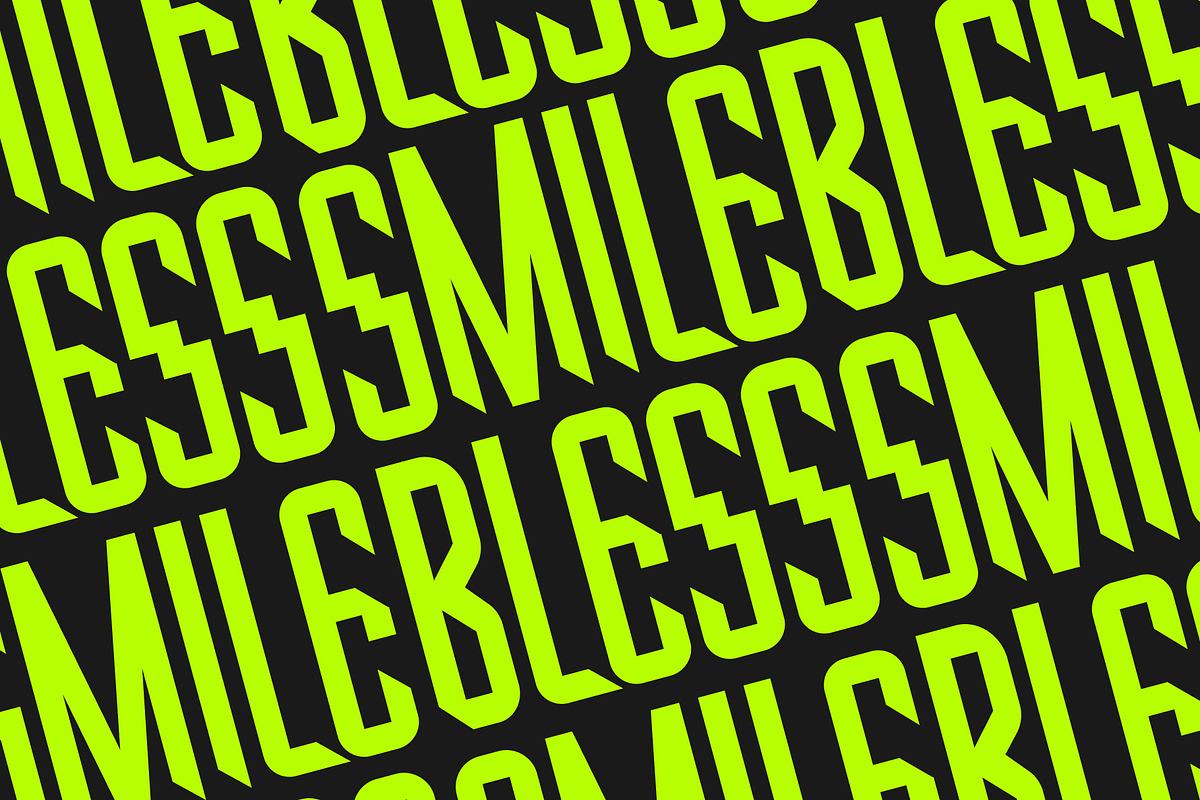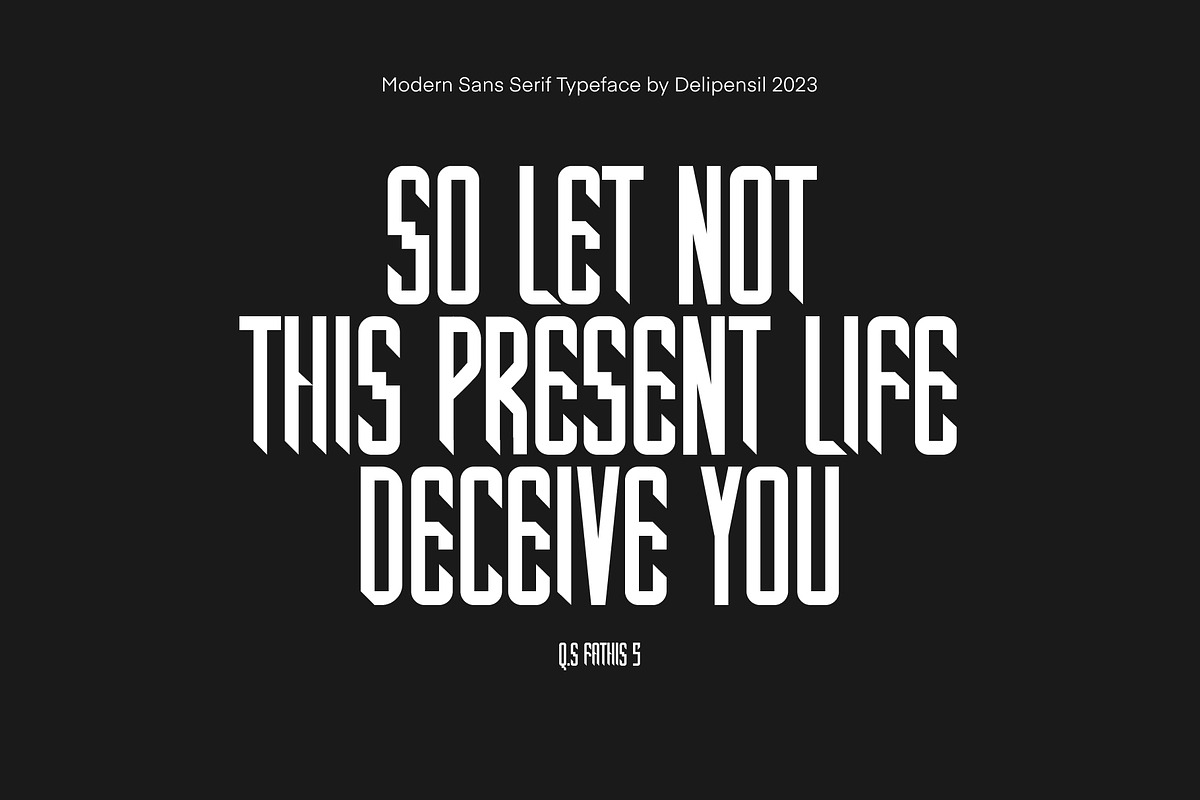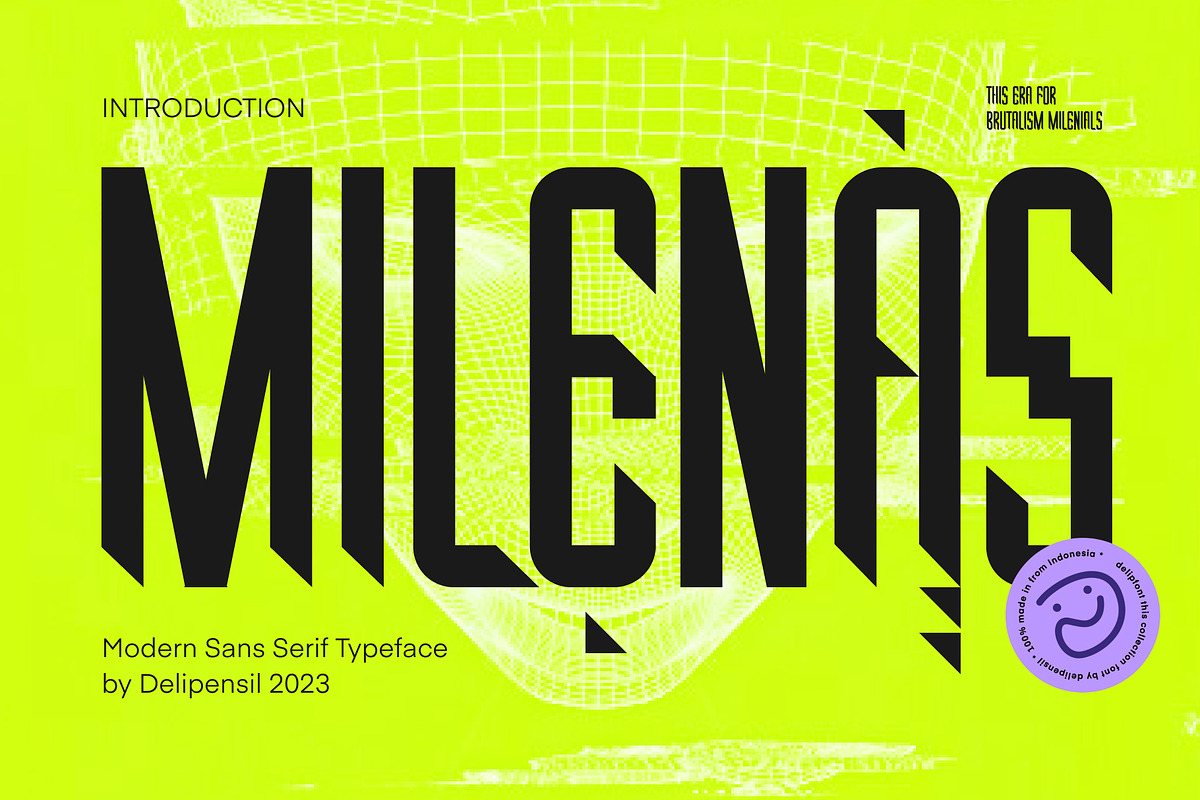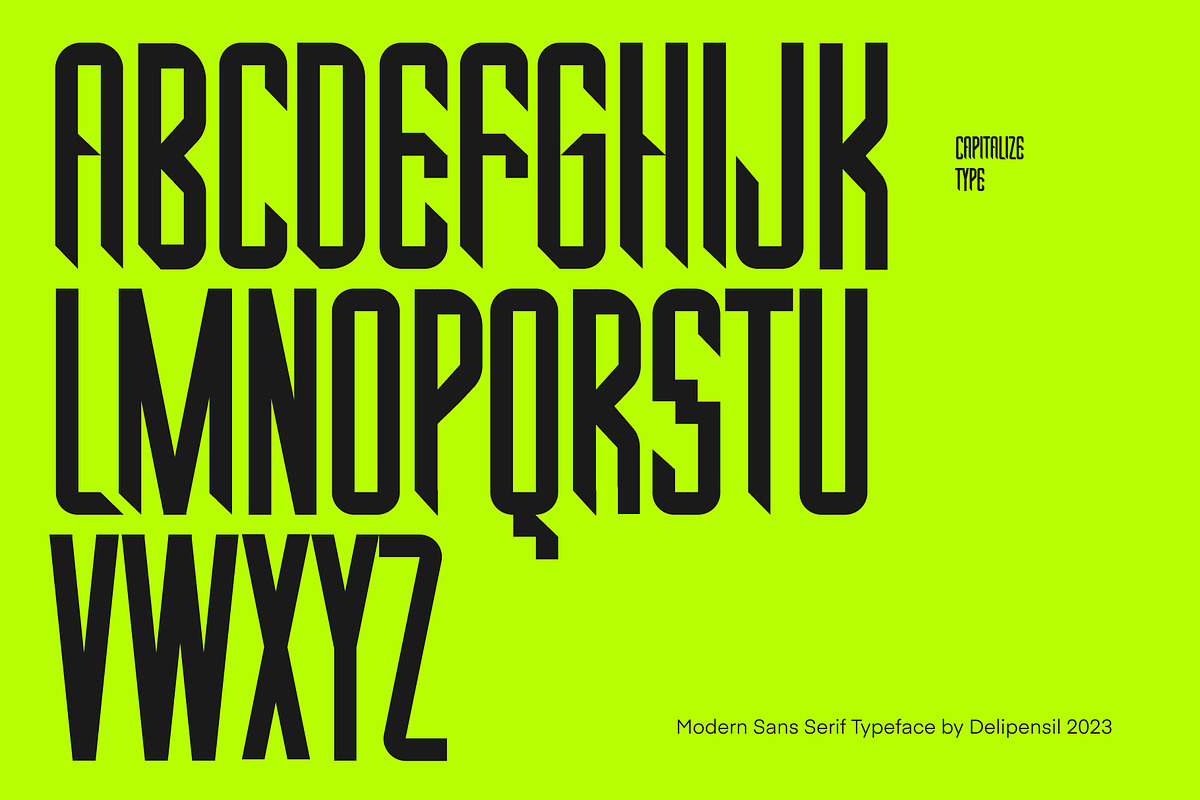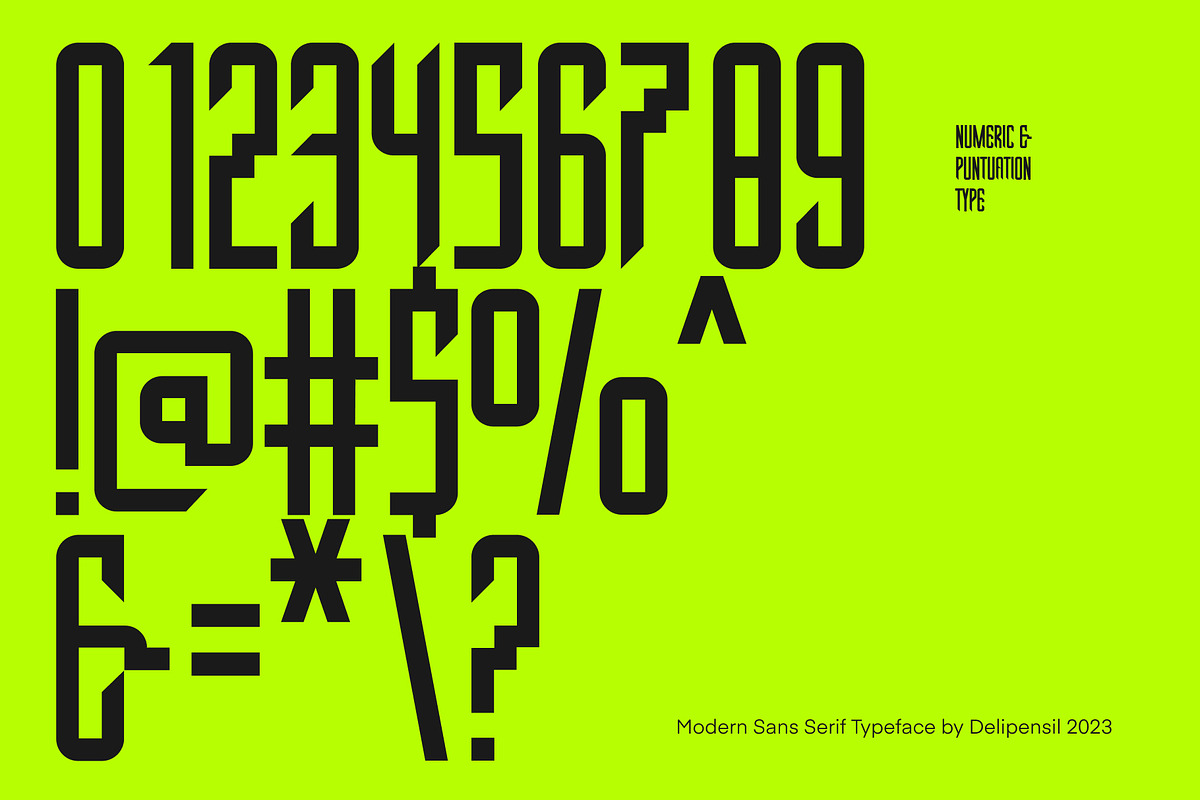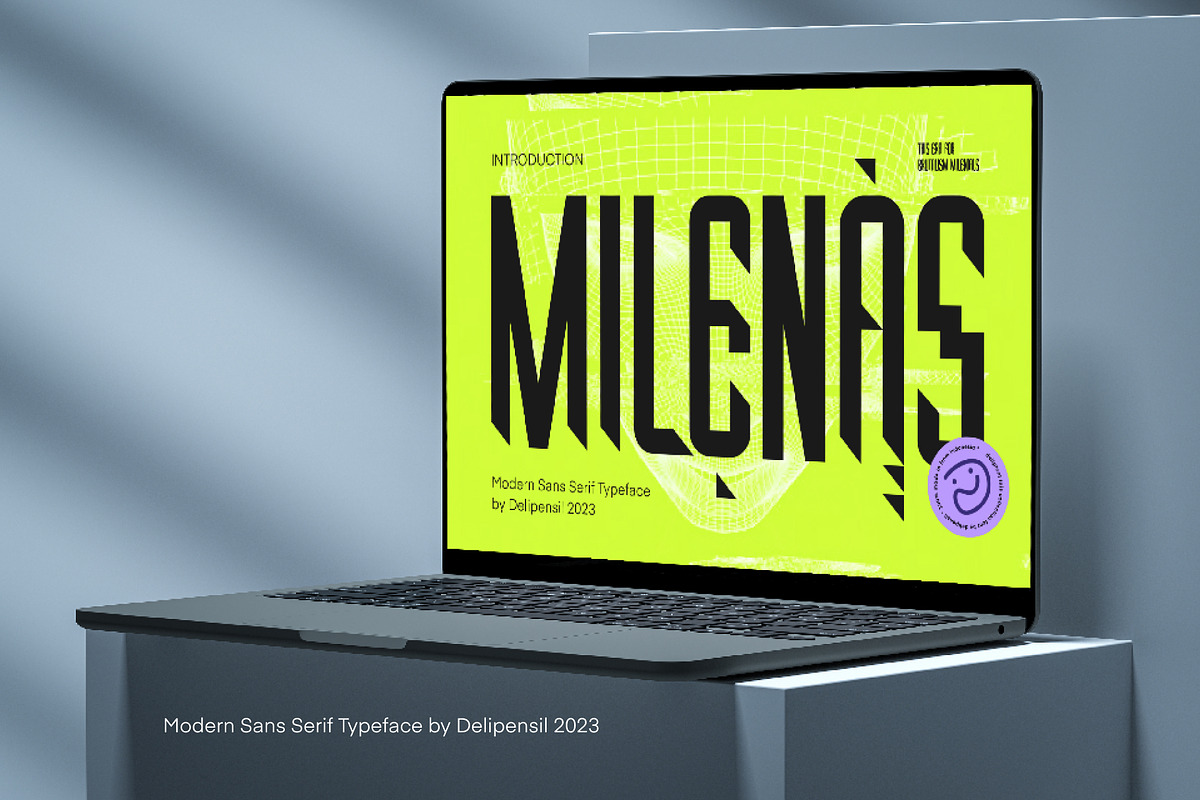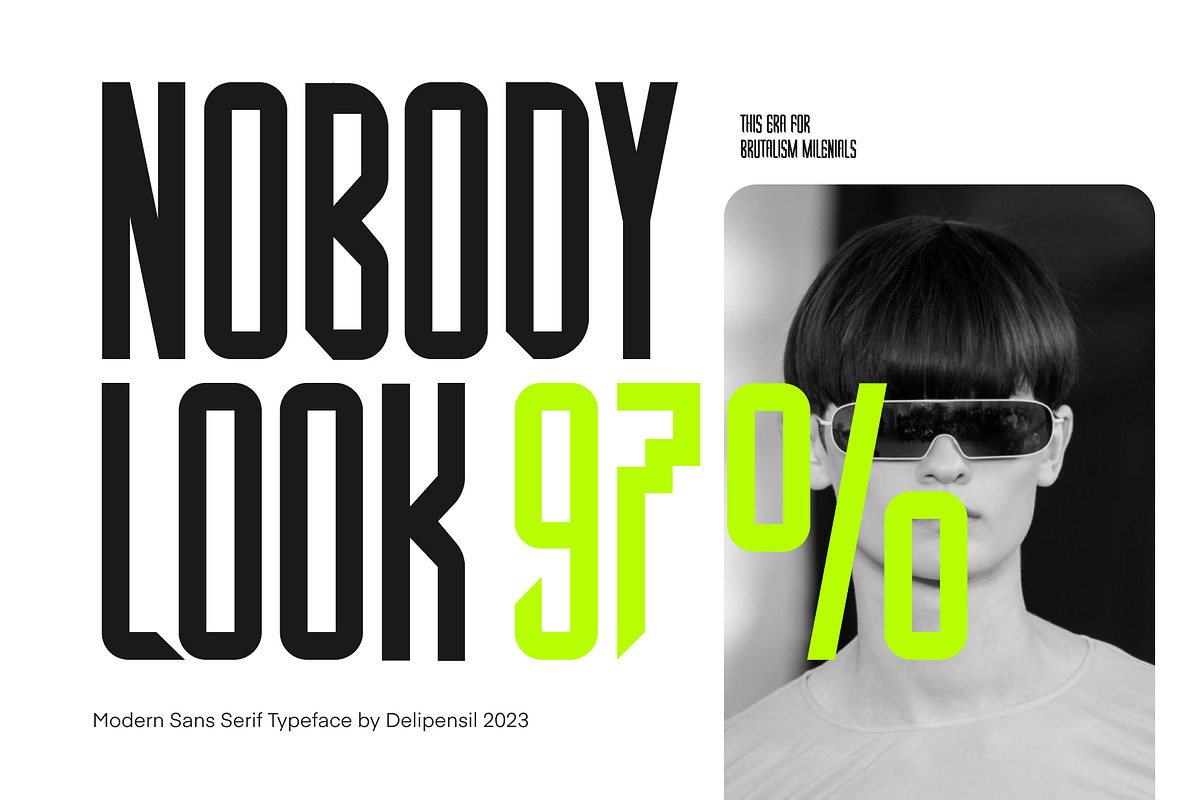
MILENAS - Modern Sans Serif
Bismillah, Introduction NEW FONT : MILENAS - SANS SERIF TYPEFACE
This font suitable for style Brutalism this era, to make you headline stunning, title more bold, and make your design more Futuristic, everything you need in here